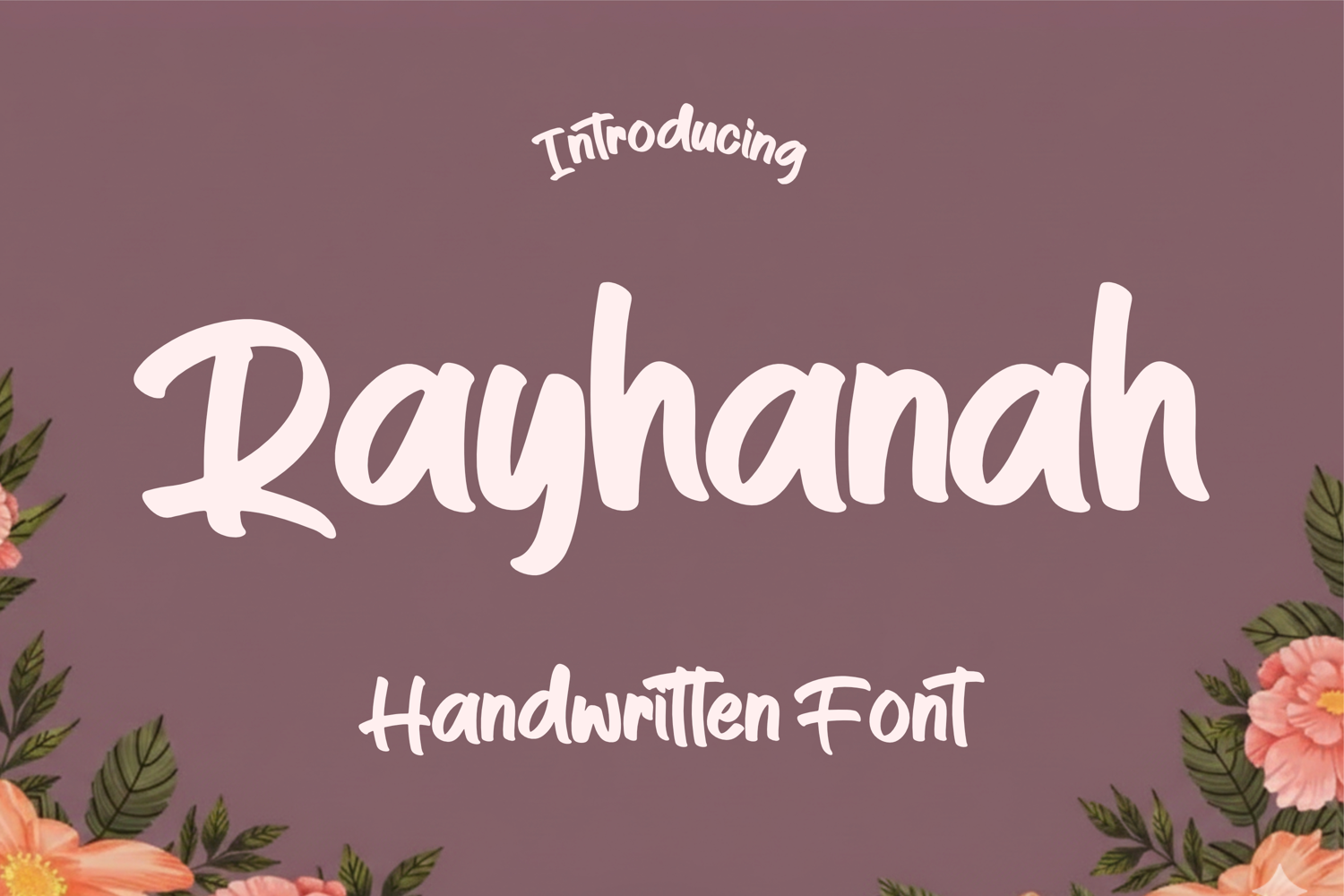
Rayhanah - Handwritten Font
Rayhanah is a gentle handwritten font crafted to bring warmth, personality, and emotional charm to every design. With its smooth curves and natural hand-drawn flow, Rayhanah is perfect for projects that need a friendly, inviting, and authentic touch.
Ideal for quotes, branding, invitations, social media, and feminine aesthetics—Rayhanah transforms simple text into heartfelt expressions.
Bring your designs to life with Rayhanah’s soft elegance and handcrafted beauty.